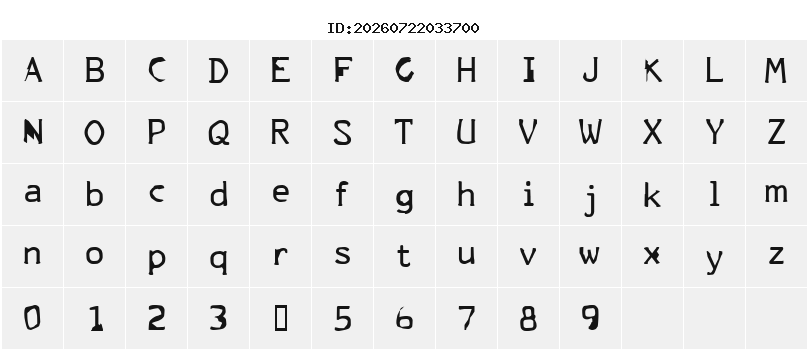
FKR ParkLife Preview
• Font Name: FKR ParkLife
• Font Style: UltraBold
• Font ID: FKR ParkLife
• Full Font Name: FKR ParkLife UltraBold
• PostScript Name: FKRParkLifeUltraBold
• Character Count: 210
About FKR ParkLife.ttf
FKR ParkLife.ttf is a modern, elegant sans-serif font designed for ultimate readability and visual harmony. Perfect for branding, headlines, web design, and print materials.